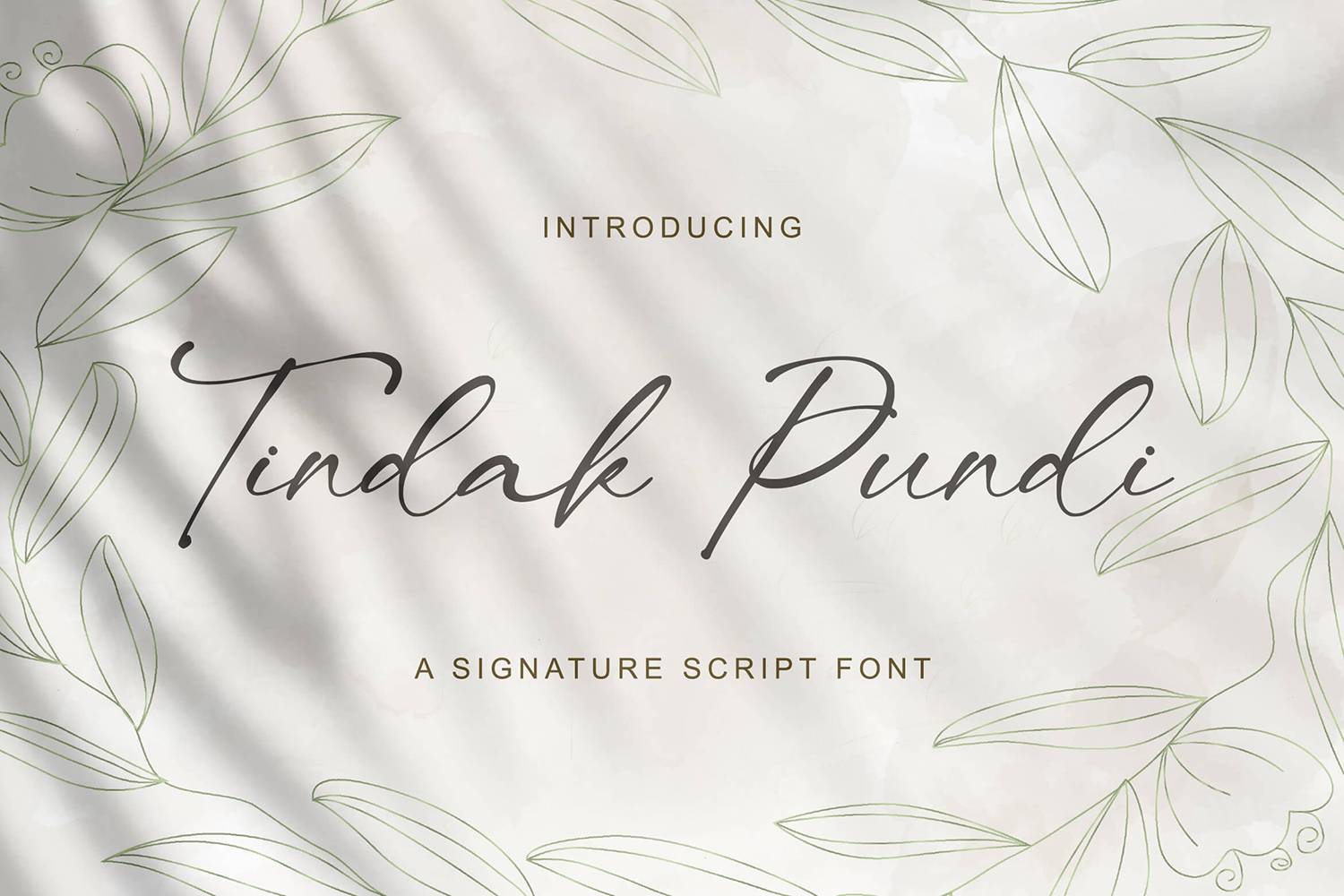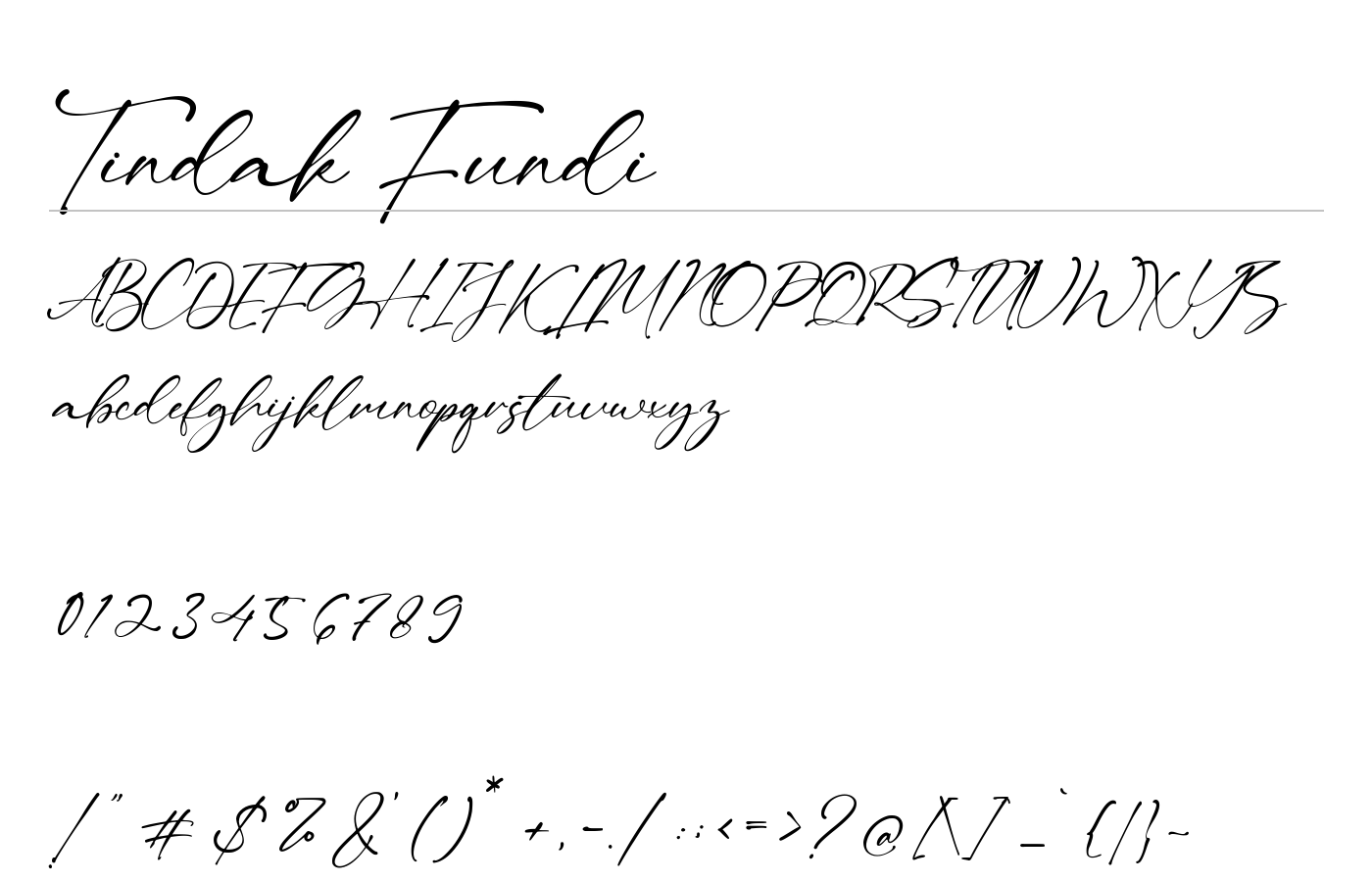
Tindak Pundi is a delicate, elegant script font with a handwritten feel, characterized by its thin, flowing strokes and graceful letterforms. Its light weight and high, airy x-height give it a refined and stylish appearance, making it ideal for sophisticated branding, invitations, and fashion-related designs that require a personal yet polished touch. This font works best in larger sizes where its intricate details can be appreciated, adding a sense of luxury and artistic flair.
Tindak Pundi Font
About Tindak Pundi Font
| Font family | Tindak Pundi Font |